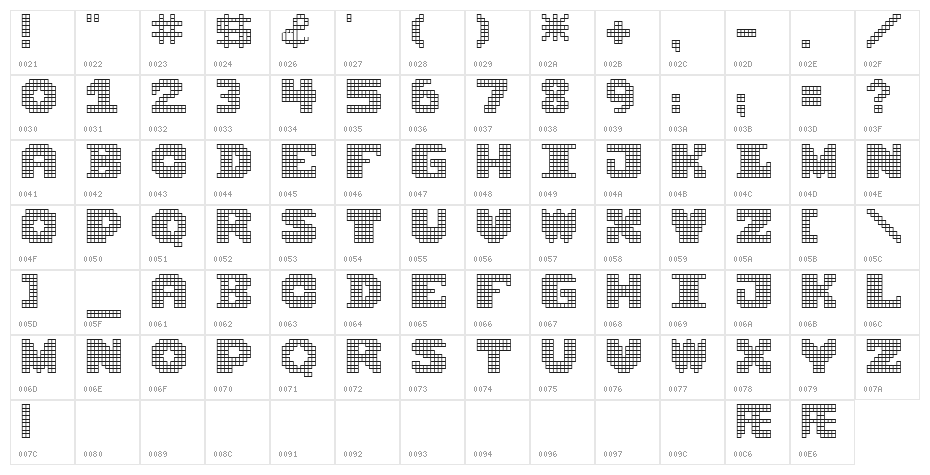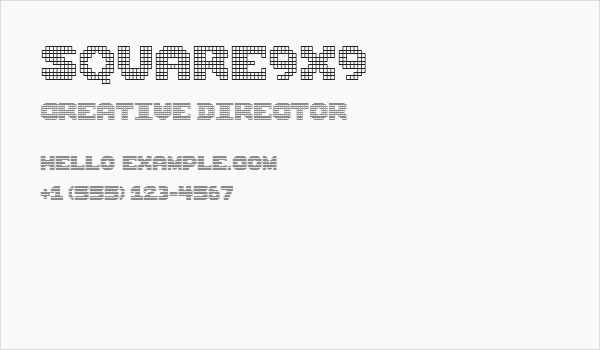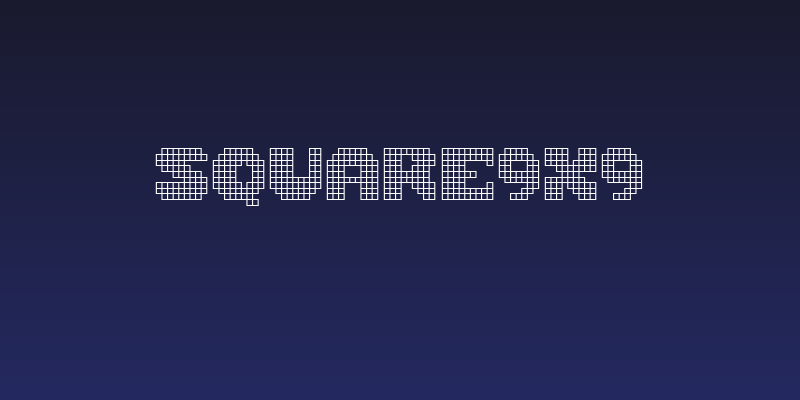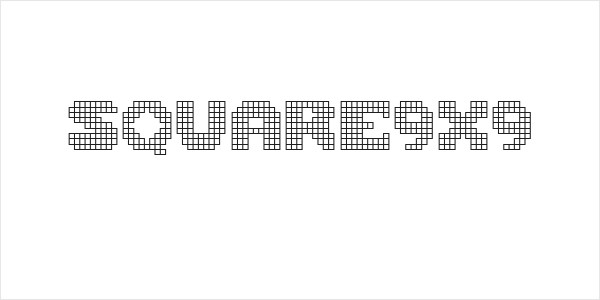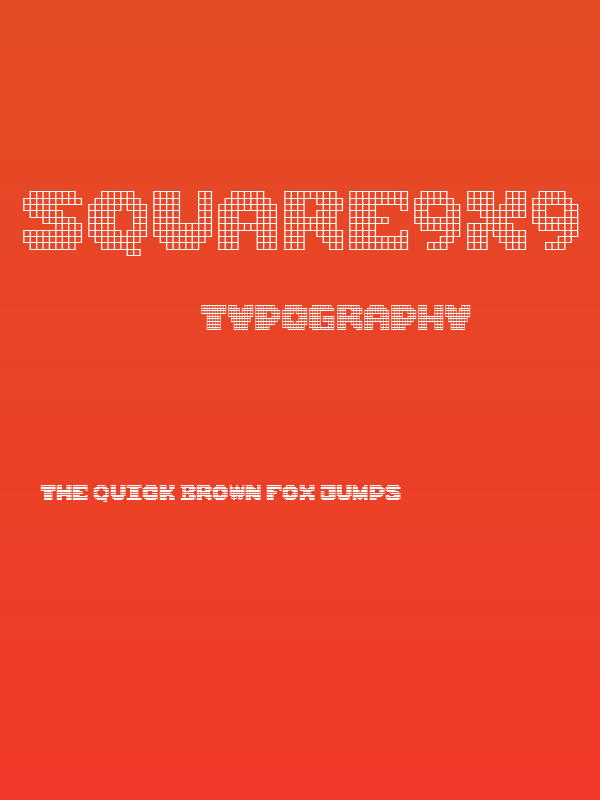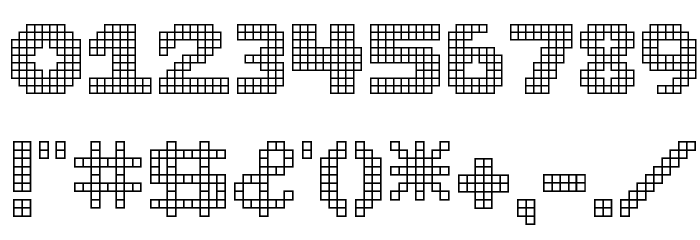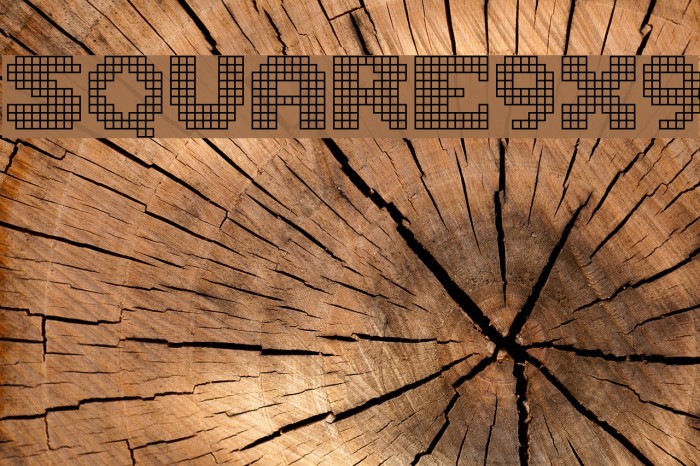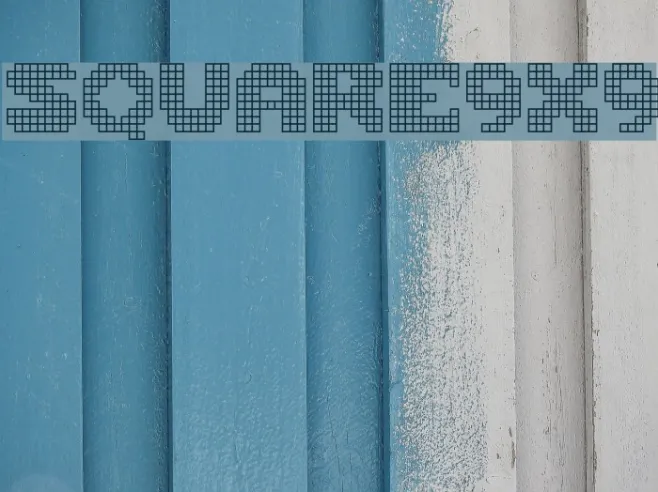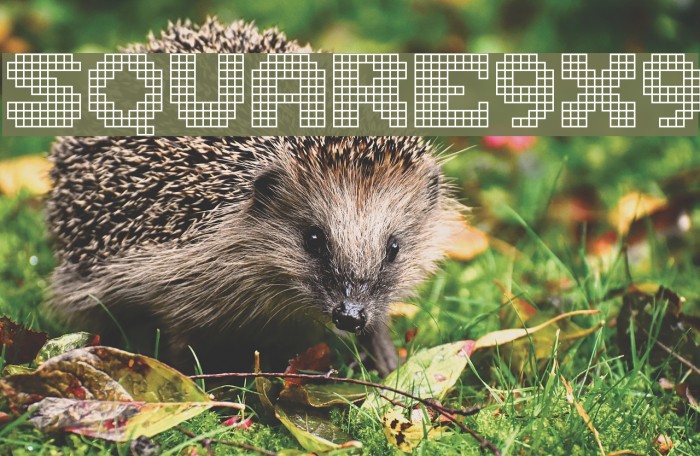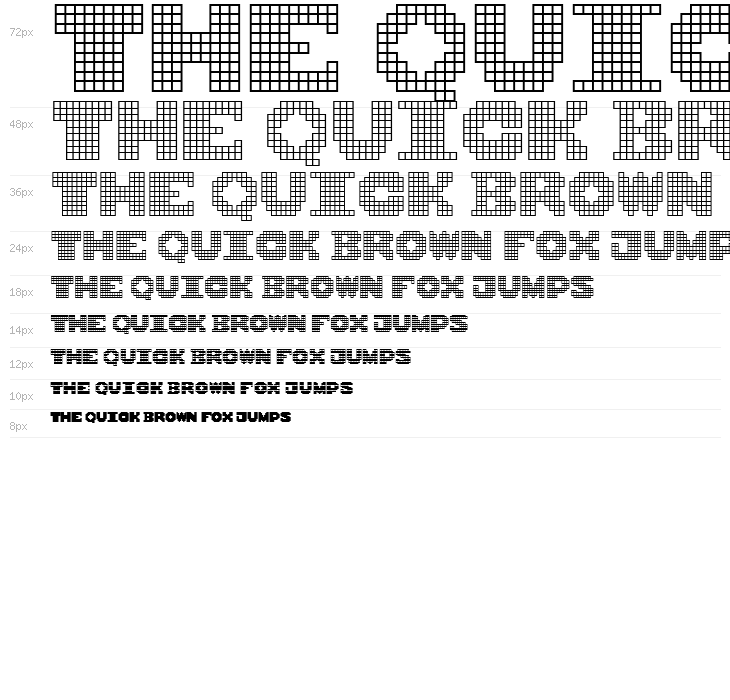
Square9x9 Font
Square9x9 Description
This font features a unique, pixelated design where each character is composed of a grid of small squares, giving it a digital, retro appearance. The characters are bold and blocky, with a uniform structure that maintains consistency across all letters, numbers, and symbols. The grid-like pattern creates a distinct texture, making it stand out in digital and print media. Its geometric style is reminiscent of early computer graphics, making it ideal for projects that aim to evoke nostalgia or a tech-oriented theme.
| Proposed Projects | Ideal for video game design, tech-themed posters, digital art projects, and retro-style branding. |